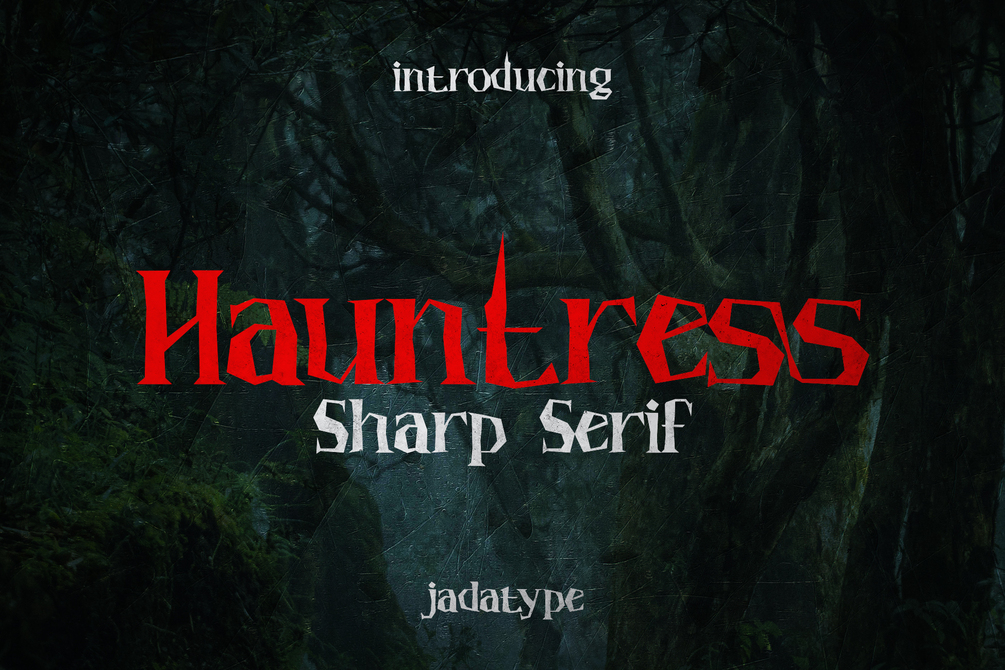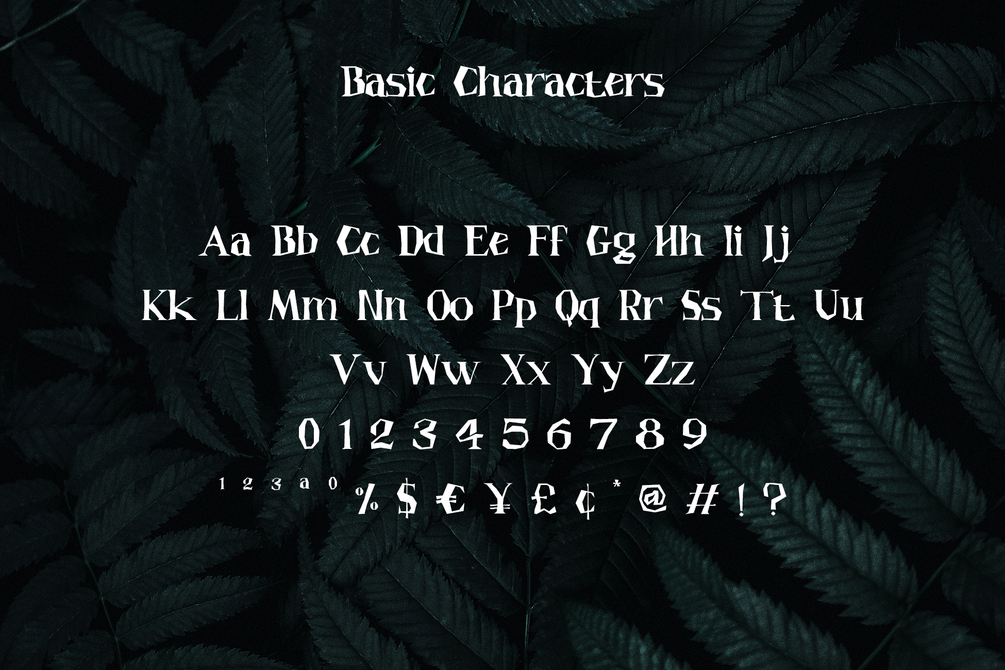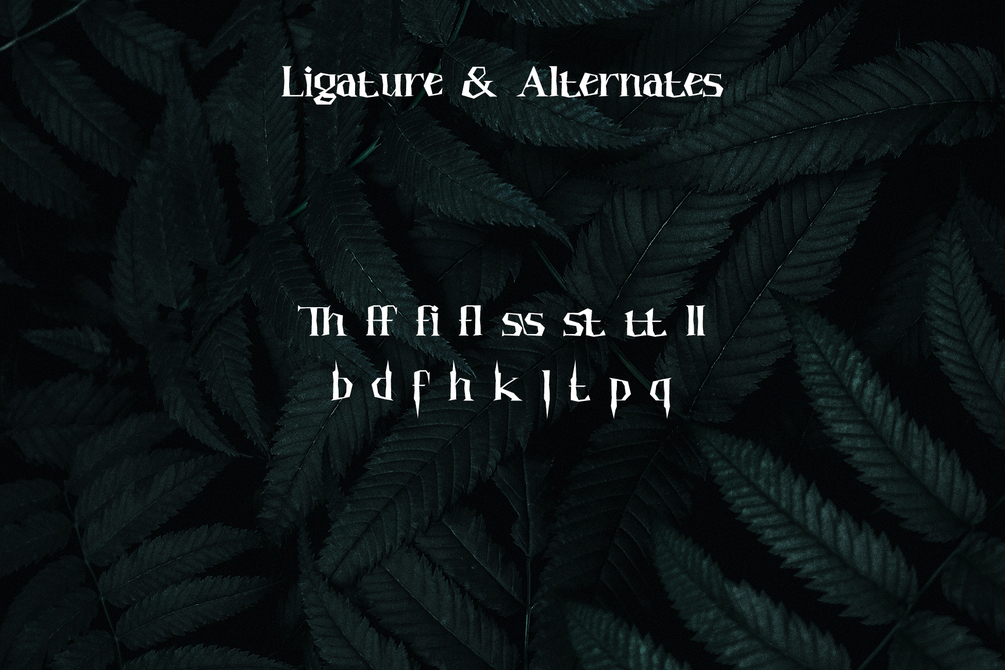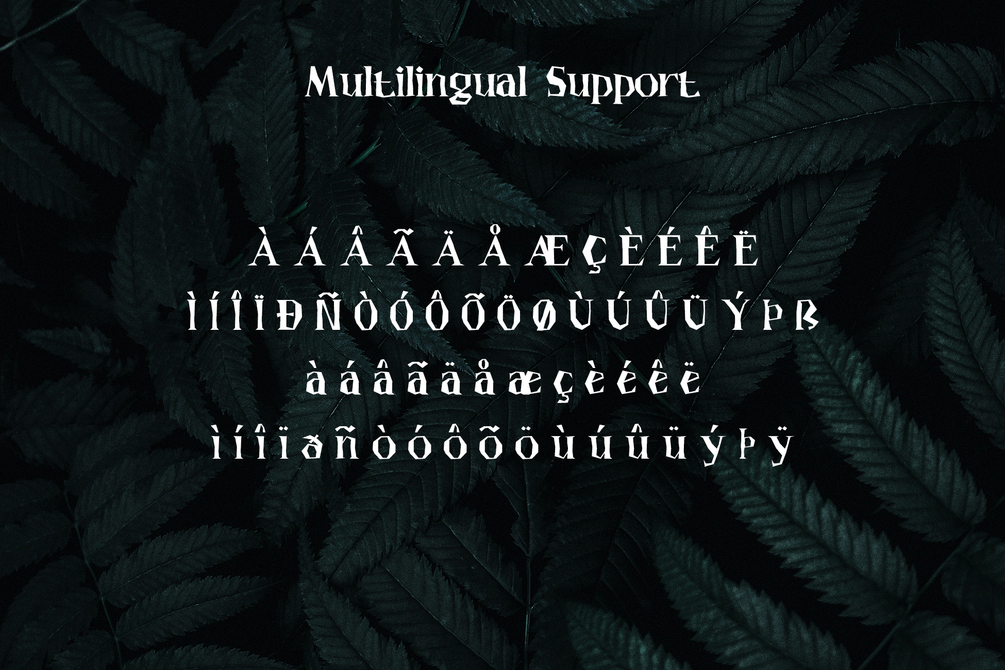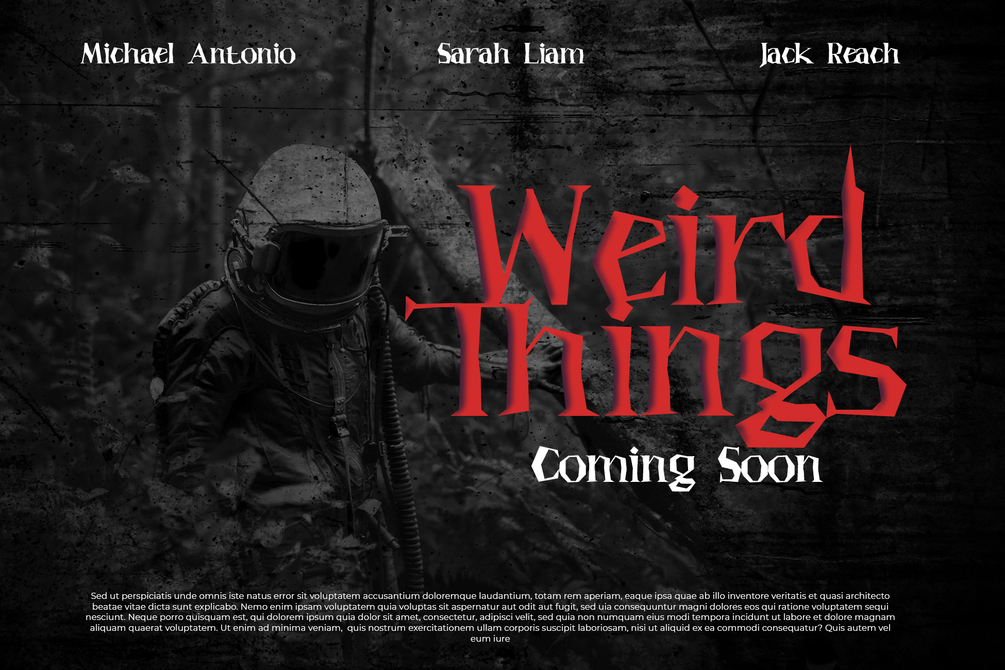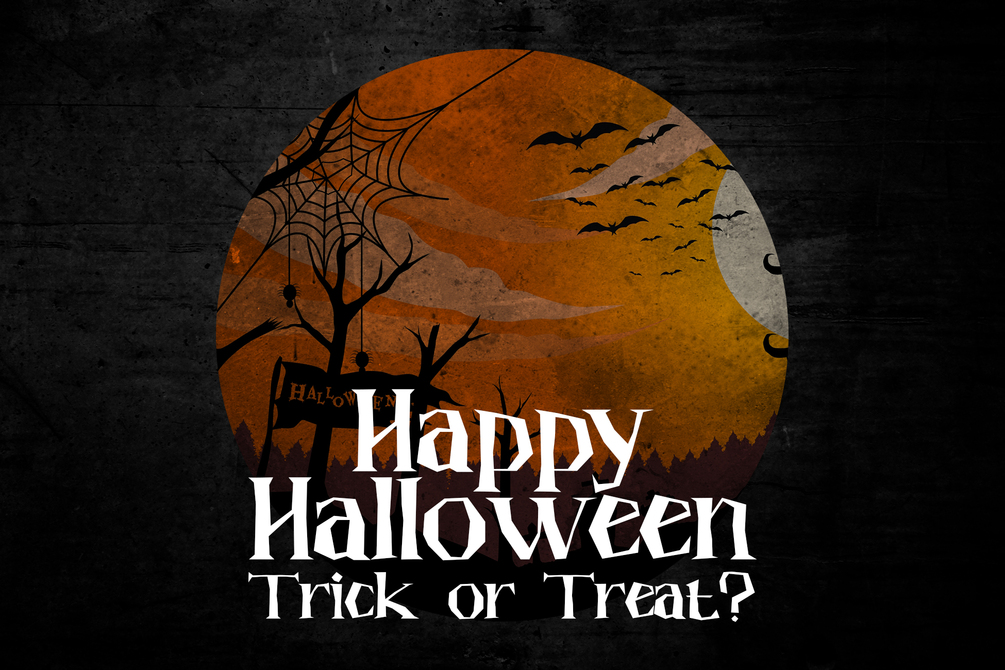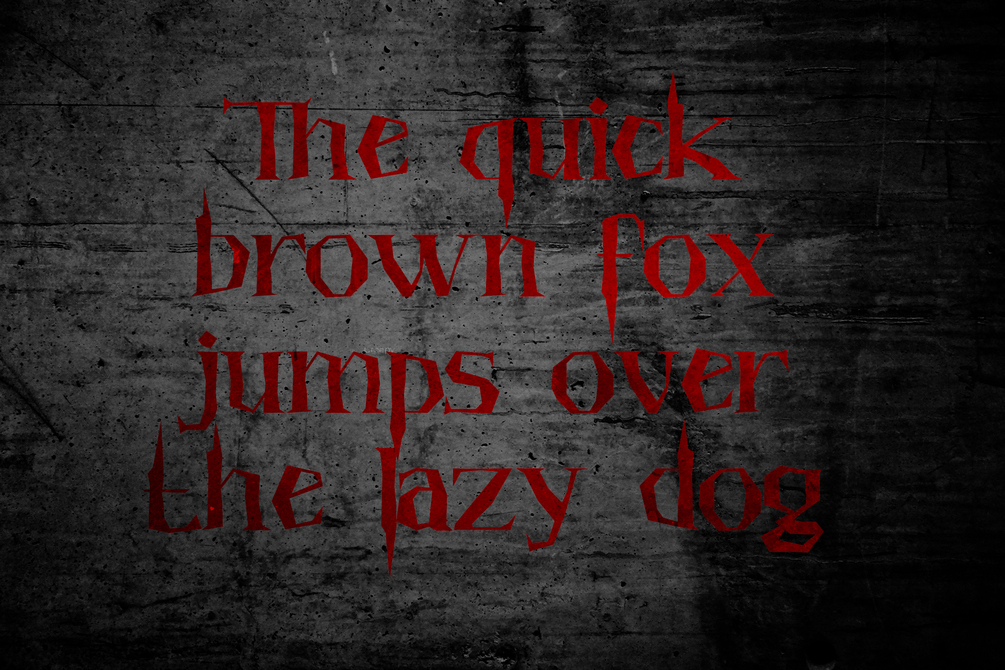
Hauntress Font
Hauntess is a Serif Font that comes with a scary sharp-display's style. suitable for posters, logotype, branding, social media, book, movie and so on. contains standard English letters, numbers, punctuation, alternates, and several accents that support multilingualism.